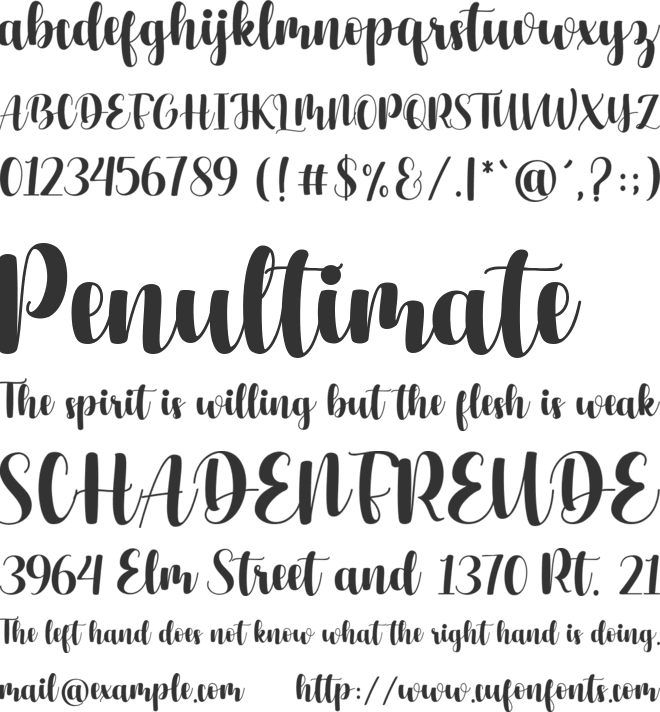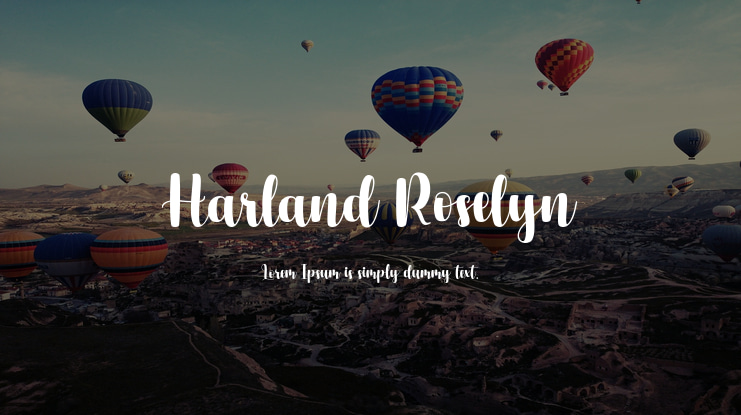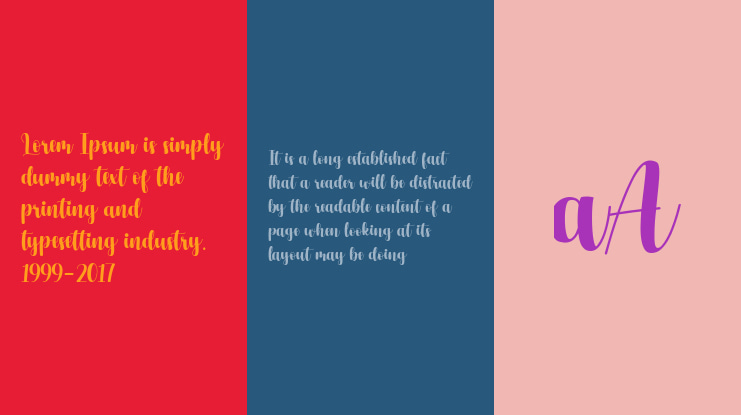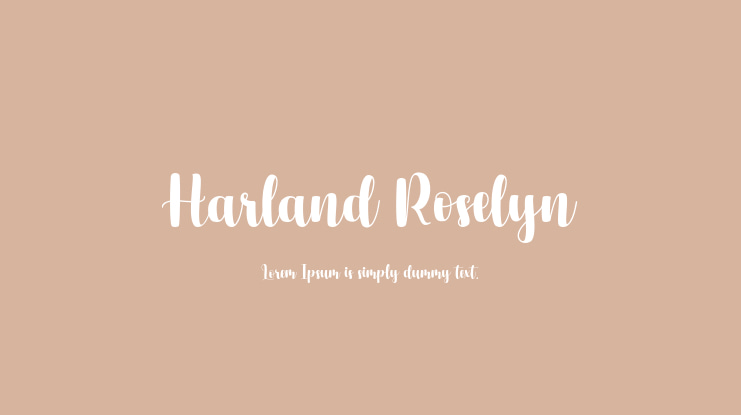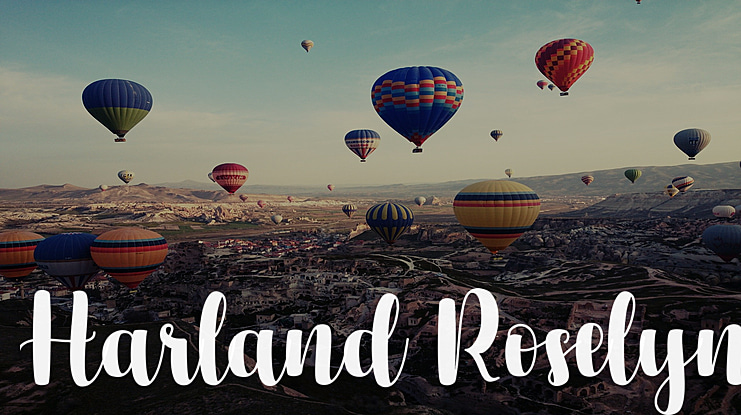
Harland Roselyn Font
Romantic and sweet calligraphy typeface with characters that dance along the baseline. It will add a luxury spark to any design project that you wish to create!
Harland Roselyn font preview